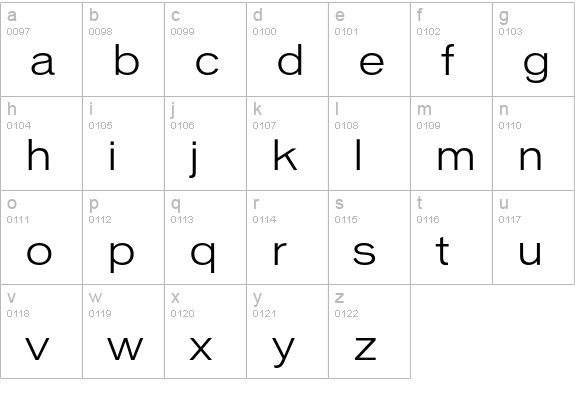
VonnesTTThinExt Font Details
VonnesTTThinExt font is a stunningly elegant typeface that exudes a sense of sophistication and refinement. Its slender and delicate letterforms add an air of grace and subtlety to any design project. With its thin strokes and precise curves, this font effortlessly captures attention and creates a visually pleasing reading experience. Designed with meticulous attention to detail, VonnesTTThinExt font offers a harmonious balance between modernity and classic beauty. It is a versatile typeface that can be used for a wide range of applications, including branding, editorial design, advertisements, and more. Whether you are creating a logo, designing a magazine layout, or crafting a website, this font will bring a touch of elegance and professionalism to your work. One of the most remarkable aspects of VonnesTTThinExt font is that it is freely available to download at FontsMarket.com. This means that you can enjoy the beauty and versatility of this typeface without any cost. It is a generous offering from the creators, allowing designers and enthusiasts to access a high-quality font without breaking the bank. The versatility of VonnesTTThinExt font extends beyond its aesthetic appeal. It supports a wide range of languages, making it suitable for multilingual projects. Additionally, it comes with a variety of OpenType features, including alternate characters, ligatures, and stylistic sets, which add further customization options to your designs. Whether you are a professional designer or a beginner, VonnesTTThinExt font is a must-have in your font library. Its timeless beauty and versatility make it a go-to choice for a multitude of design projects. Download it for free at FontsMarket.com and elevate your designs with the elegance and refinement of VonnesTTThinExt font.